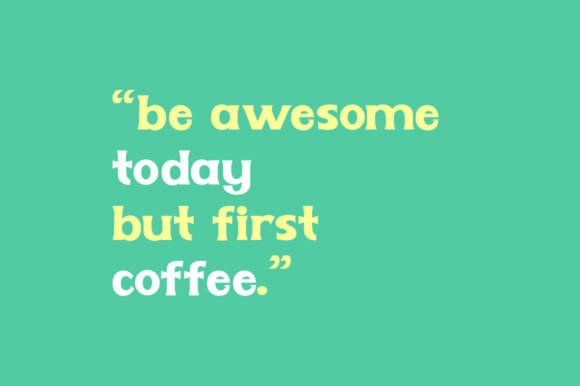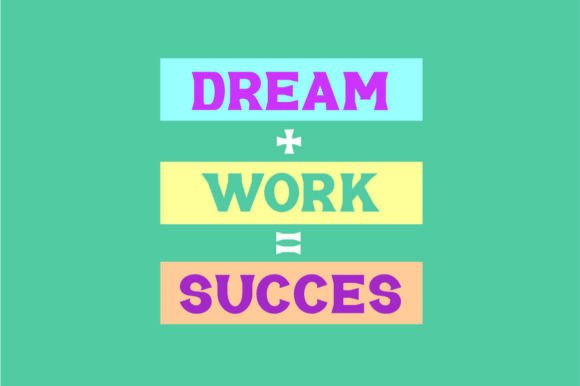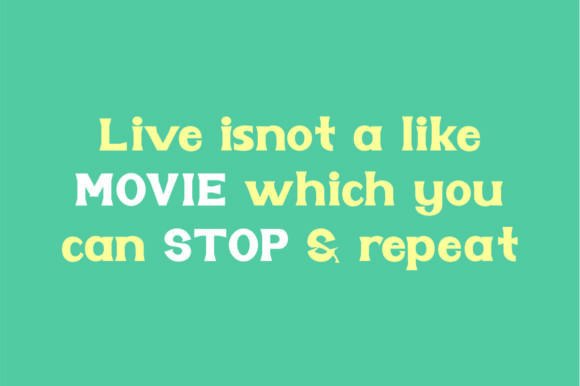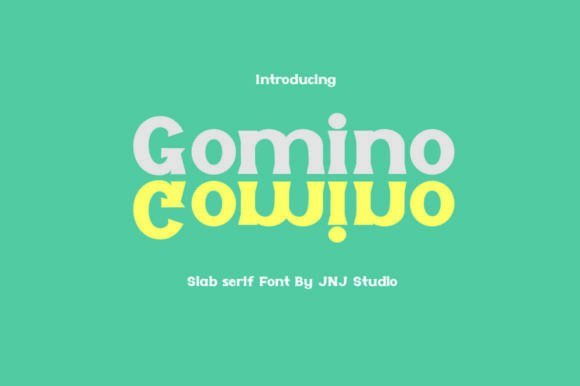
Introduction to Gomino Font
Introducing β€œGomino” is a modern slab serif font that combines strength and versatility, making it ideal for bold headlines and impactful displays.
Characterized by thick, solid strokes and prominent serifs, Gomino conveys confidence and stability Its clean lines and balanced proportions give it a professional look, yet it maintains a hint of playfulness, suitable for both traditional and contemporary designs.